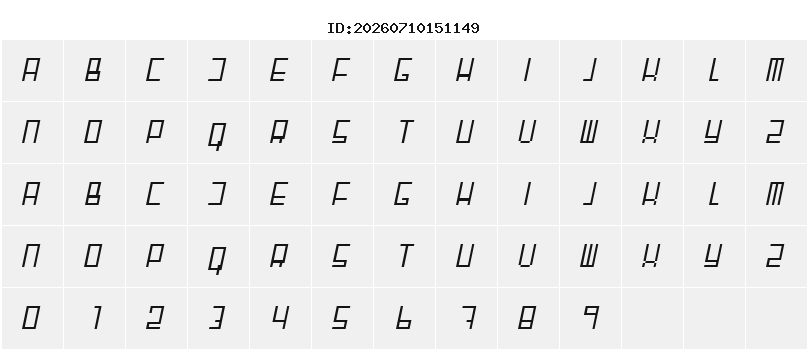
Fair N Square Preview
• Font Name: Fair N Square
• Font ID: DavidKerkhoff: Fair 'N' Square Italic: 2010
• Full Font Name: Fair 'N' Square Italic
• PostScript Name: FairNSquare-Italic
• Designer: David Kerkhoff
• Manufacturer: David Kerkhoff
About Fair N Square.ttf
Fair N Square.ttf is a modern, elegant sans-serif font designed for ultimate readability and visual harmony. Perfect for branding, headlines, web design, and print materials.